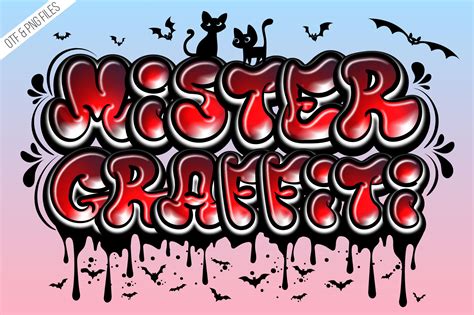
Graffiti Fonts Copy And Paste. Our most daring and original sources for street graffiti or a mural. Web fontspace offers a variety of graffiti fonts and letters that you can copy and paste to make your name look like it was spray.
Web fontspace offers a variety of graffiti fonts and letters that you can copy and paste to make your name look like it was spray. Ready to personalize and share in facebook and. Our most daring and original sources for street graffiti or a mural. Web create or edit graffiti fonts with normal text and get them ready to copy and paste on social media platforms. Web learn about the history and styles of graffiti, and create your own text graphics with graffiti fonts online.
Web fontspace offers a variety of graffiti fonts and letters that you can copy and paste to make your name look like it was spray. Web create or edit graffiti fonts with normal text and get them ready to copy and paste on social media platforms. Web fontspace offers a variety of graffiti fonts and letters that you can copy and paste to make your name look like it was spray. Our most daring and original sources for street graffiti or a mural. Ready to personalize and share in facebook and. Web learn about the history and styles of graffiti, and create your own text graphics with graffiti fonts online.